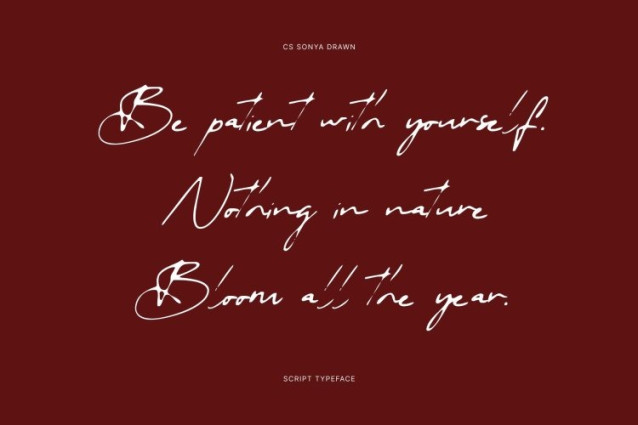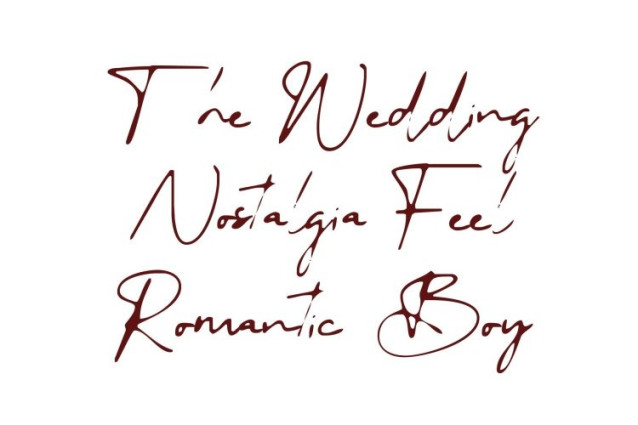
CS Sonya Drawn Font This is a signature script font created to capture the intimate character of handwritten signatures, enriched with a subtle hand-drawn texture. Inspired by natural pen movement and fluid writing gestures, it delivers an authentic handwritten feel that adds individuality and charm to every composition. Its smooth flow and confident strokes create a refined presence that feels both personal and sophisticated.
Natural Flow with Distinctive Personality
Graceful connections and organic stroke variations closely mirror real signature writing. Gentle handcrafted nuances add warmth and realism, preventing the script from feeling overly polished or artificial. Each character moves effortlessly, forming a harmonious rhythm that makes designs feel exclusive, custom, and thoughtfully created.
Elegant Expression with Refined Warmth
This font balances elegance and approachability, resulting in a polished look suited for premium design contexts. Its signature style communicates professionalism and luxury while maintaining a genuine human touch. Whether used subtly or prominently, the font adds authenticity and prestige to high-end visual compositions.
Ideal for Logos, Branding, and Luxury Invitations
Perfect for logos, personal branding, wedding invitations, packaging, fashion and beauty projects, and boutique businesses, this font enhances upscale visuals with timeless signature elegance. Its handwritten character makes it especially suitable for personal brands and exclusive events seeking a classy, intimate, and enduring impression.